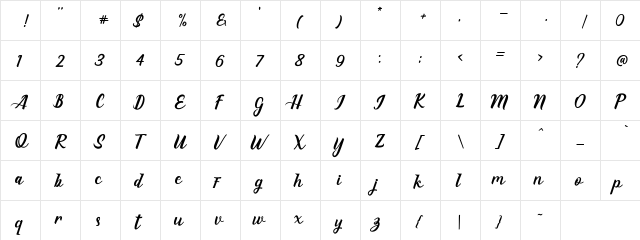
Eaglese Script Regular
Design Context for Eaglese Script Typeface
Eaglese Script brings a calligraphic fluidity to the page — its connecting strokes and expressive curves give it an unmistakably human quality.
Font Pairing: Combine Eaglese Script with a simple geometric sans for maximum contrast — the tension between flowing curves and clean structure is a classic typographic pairing.
Pro Tip: Use Eaglese Script for short runs of text — names, titles, or taglines. Extended body copy in script faces tires the eye quickly.